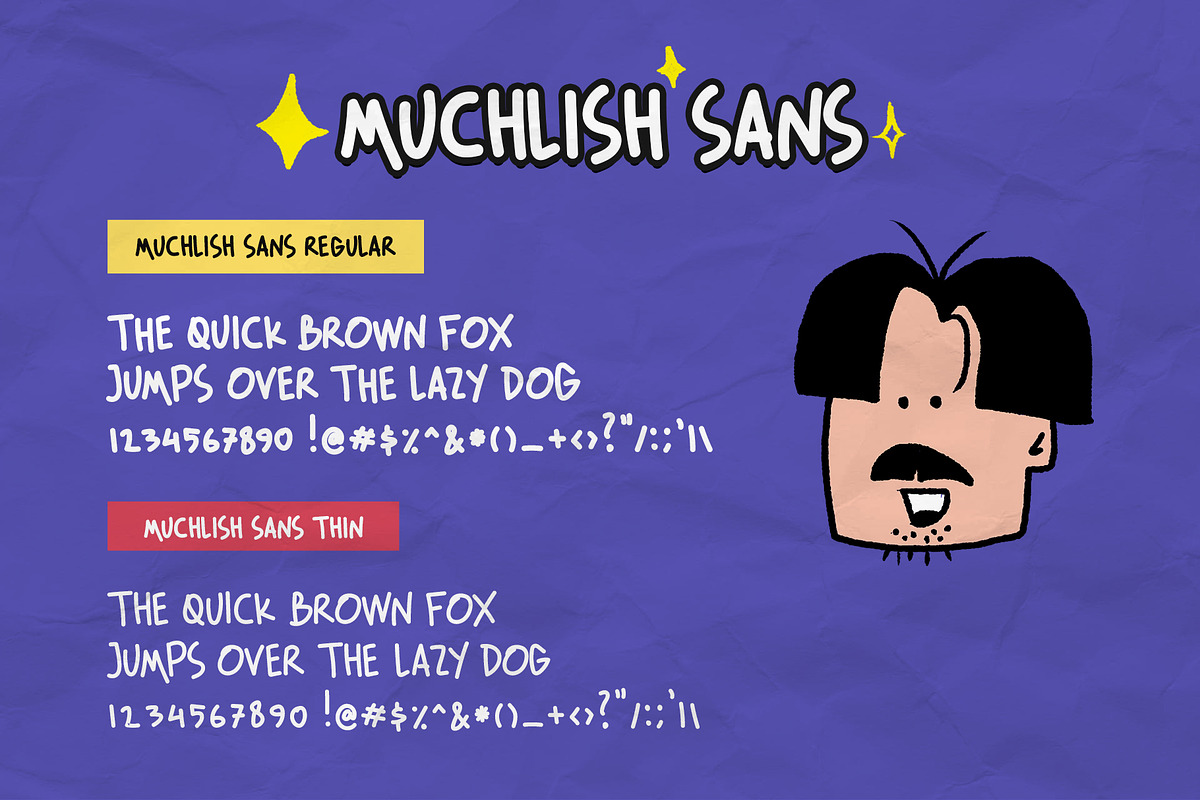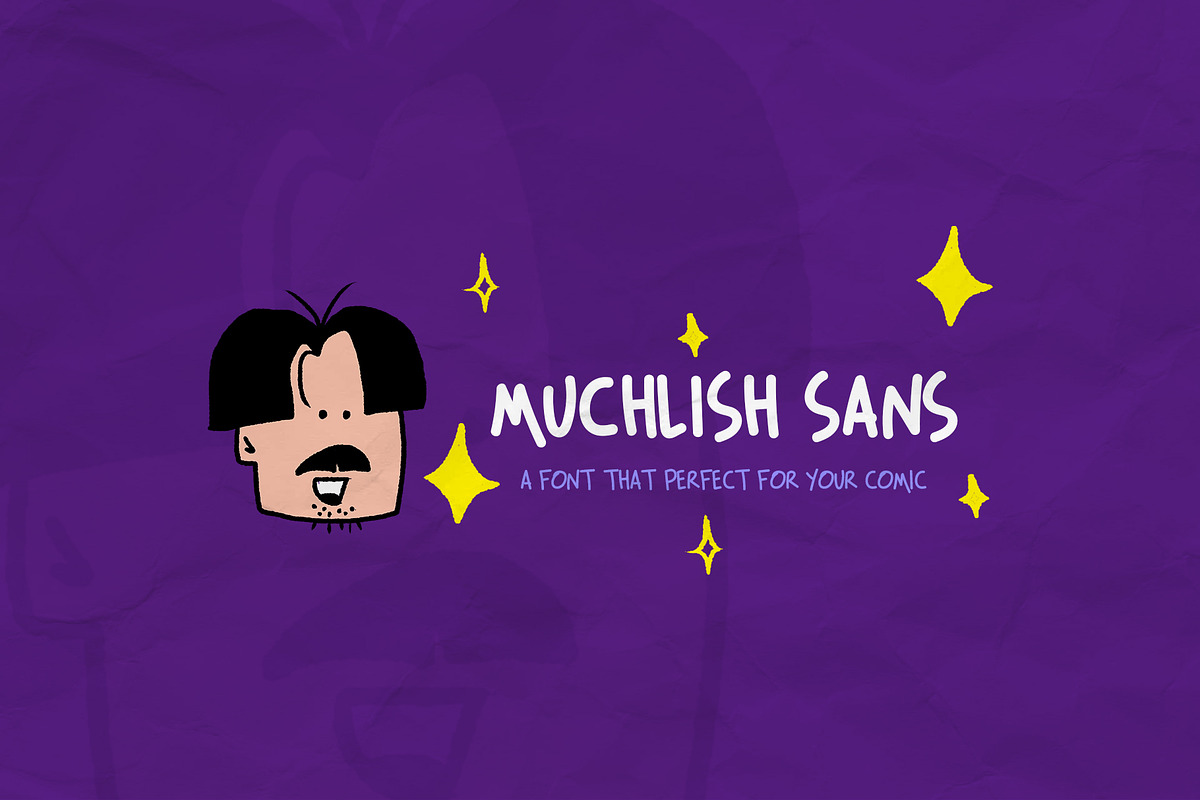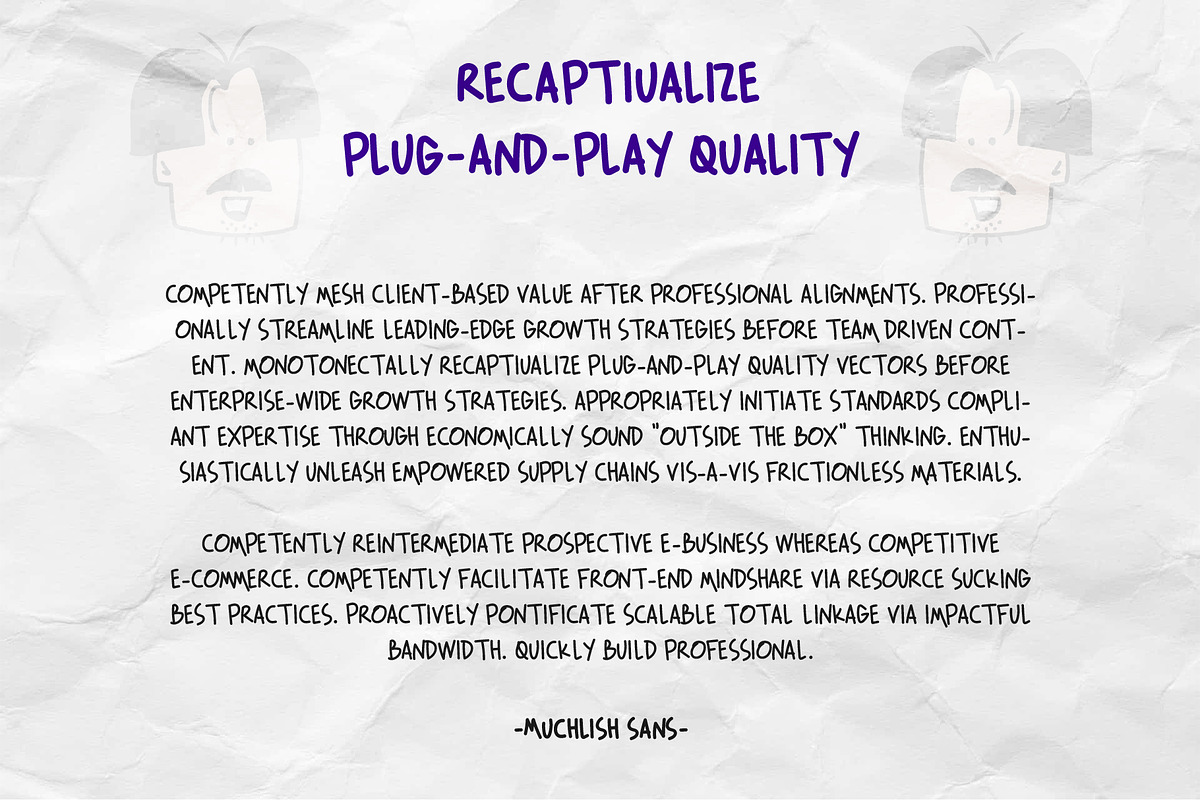
Embrace the Unseen: Muchlish Sans
Introducing "Muchlish Sans" – Where Artistry Meets Expression!
🎨 Dive into a world of creativity with Muchlish Sans, the handwritten font that breathes life into your projects! 🖋️
✨ Unleash Your Imagination: Say goodbye to the mundane and embrace the extraordinary! Muchlish Sans is not just a font; it's a journey into the realm of limitless creativity. Transform your projects into vibrant masterpieces that captivate hearts and minds.
🌈 Versatility Redefined: From whimsical comic adventures to heartfelt storytelling, Muchlish Sans adapts effortlessly to any narrative. Its dynamic strokes and graceful curves add a touch of charm, making every word a visual feast. Your creativity knows no bounds – and neither does Muchlish Sans!
🚀 Boost Your Sales, Ignite Your Impact: Stand out in the crowd with a font that doesn't just sell words but emotions. Muchlish Sans doesn't just enhance your project; it elevates it to a whole new level, leaving an indelible mark on your audience. Watch as your sales soar, driven by the irresistible allure of Muchlish Sans!
🌟 Why Choose Muchlish Sans?
Authentic Handwritten Feel: Each letter crafted with precision, mirroring the authenticity of genuine handwriting. Comic-Ready Charm: Perfect for comic strips, graphic novels, and any project that craves a dash of whimsy. Emotional Connection: Create a connection with your audience through the emotive power of Muchlish Sans. 🤩 Join the Muchlish Movement: It's more than just a font; it's a movement. Muchlish Sans isn't merely a purchase; it's an investment in the language of emotion. Become a part of something bigger – join the Muchlish Movement today!
🌟 Muchlish Sans: Where Every Word Tells a Story.